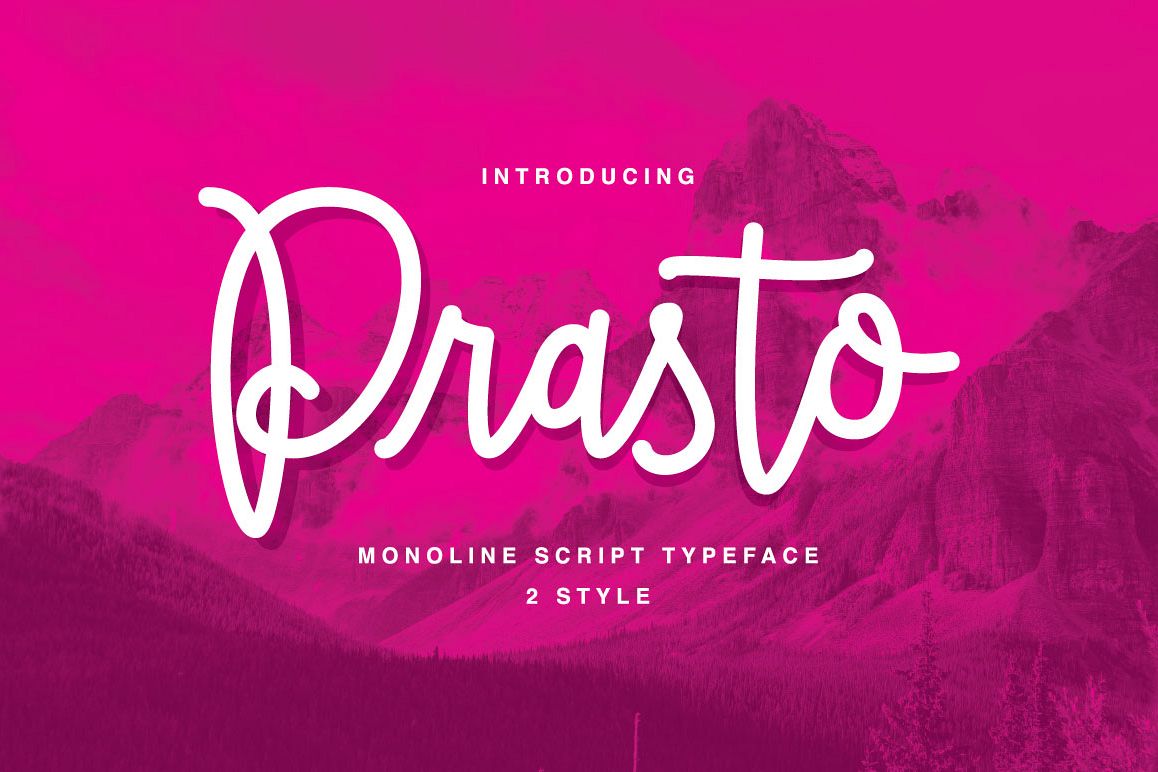
Prasto Monoline Script
Introducing Prasto - Monoline Script
Prasto - Monoline Script is a new Modern Calligraphy Typeface Fonts collection Monoline Style from Ianmikraz studio, combines from copperplate to contemporary typeface, classic, beauty and elegant touch.
Prasto - Monoline Script available 2 Style Fonts ( Clean & Rough )Prasto - Monoline Script features 264 glyphs and 83 alternate character contain with opentype features and has given PUA unicode (specially coded fonts), with tons of alternate characters. . Stylistic Alternates, Standard Ligature and more.You can access all those alternate characters by using OpenType savvy programs such as Adobe Illustrator, Adobe InDesign and CorelDraw X6-X7.For other programs that doesn't support OpenType Features or Glyphs Panel such as Photoshop, you can use Character Map in Windows to access the alternate characters :)
Prasto - Monoline Script is suitable for Apparel Brand, any greeting cards, Painting design style, or any design that needs natural and personal touch. Mix and match the alternate characters to add an attractive message to your design.
Features of Prasto - Monoline Script is;
• Swash Alternates
• Standard ligatures
• Stylistic sets